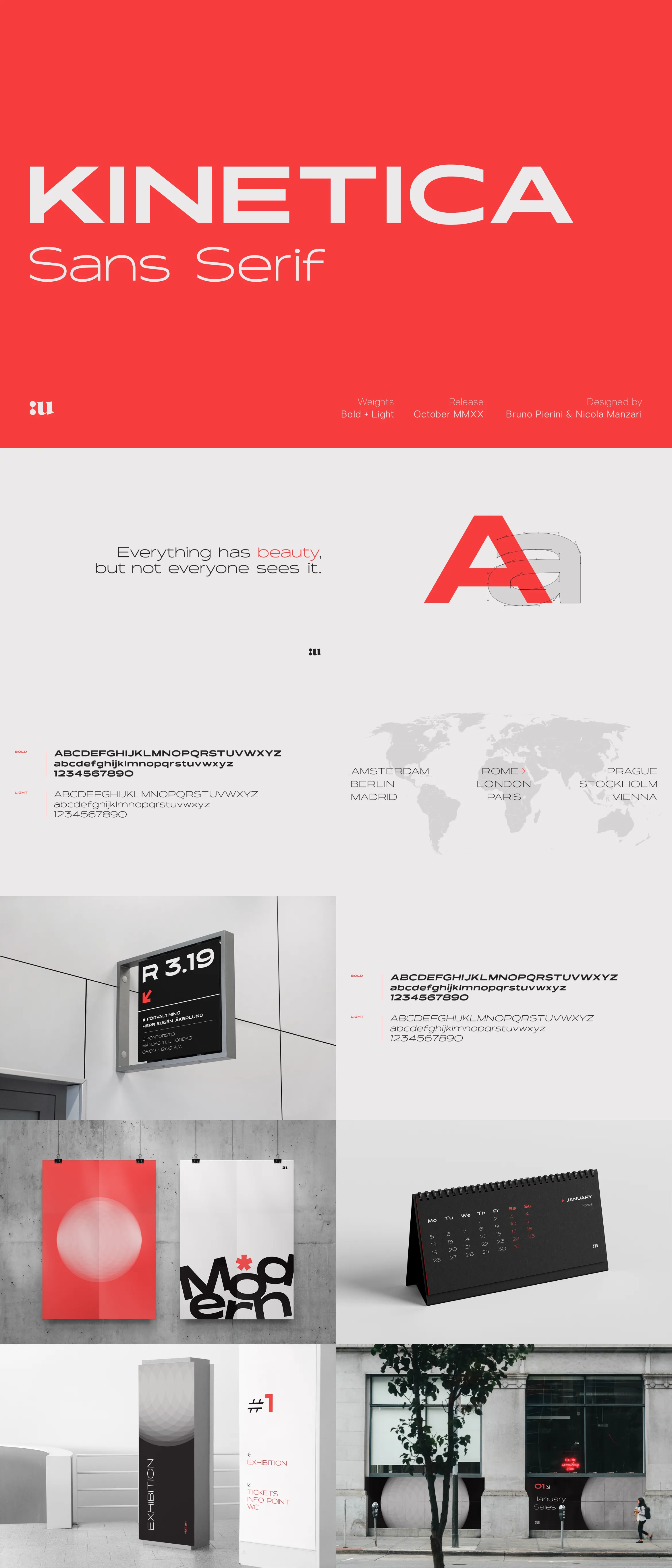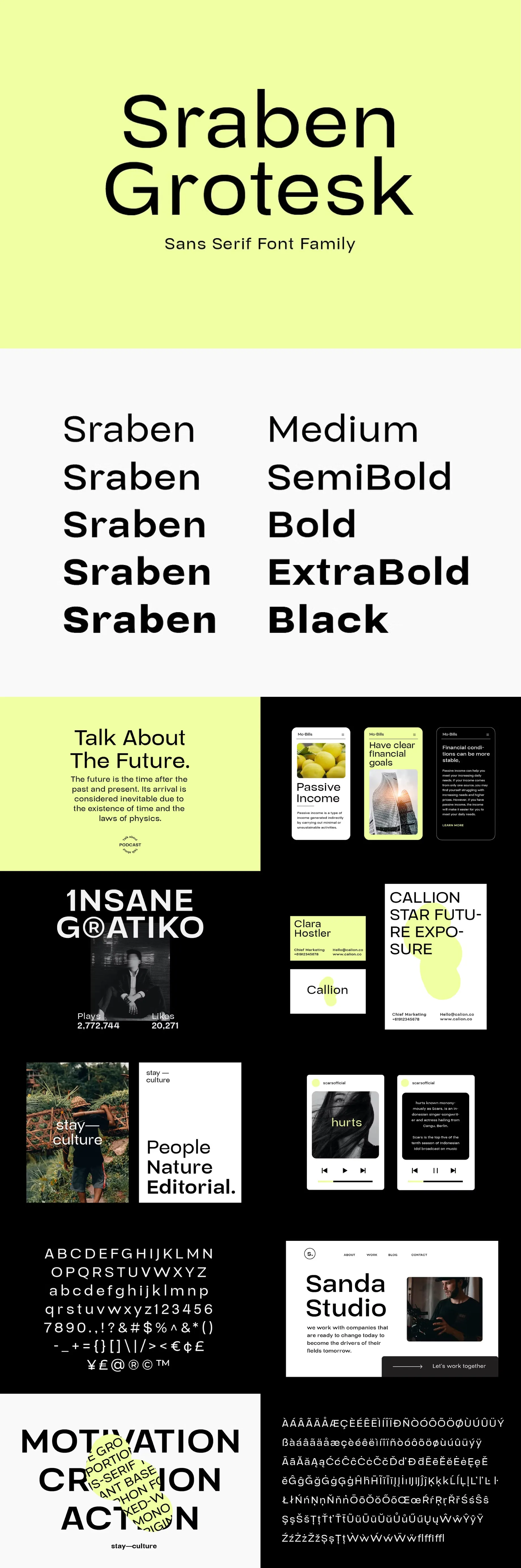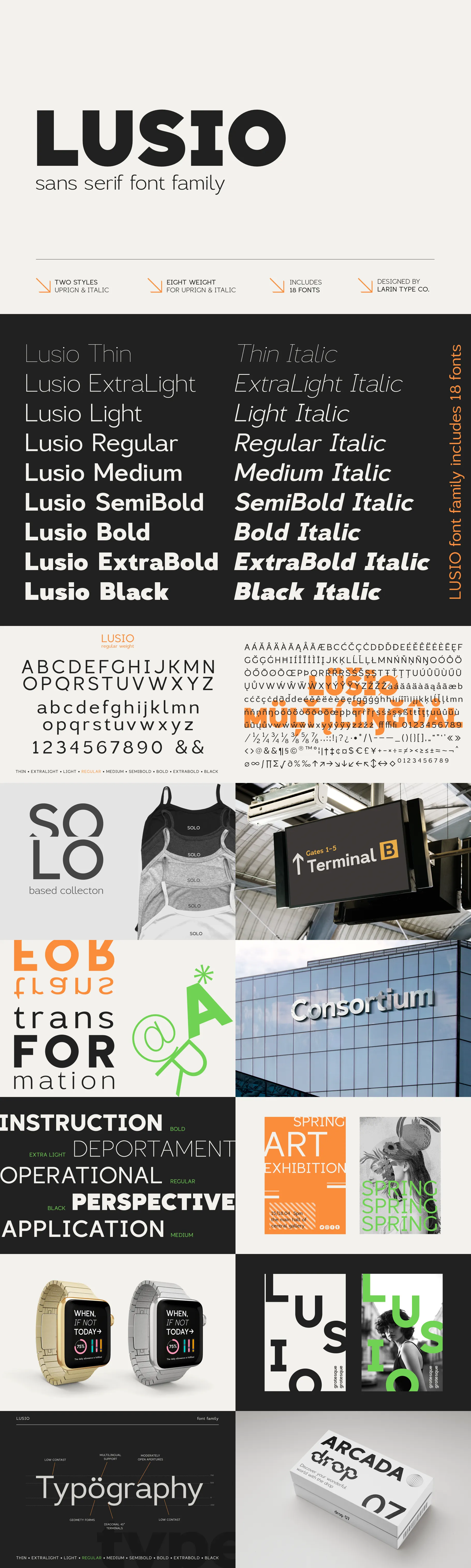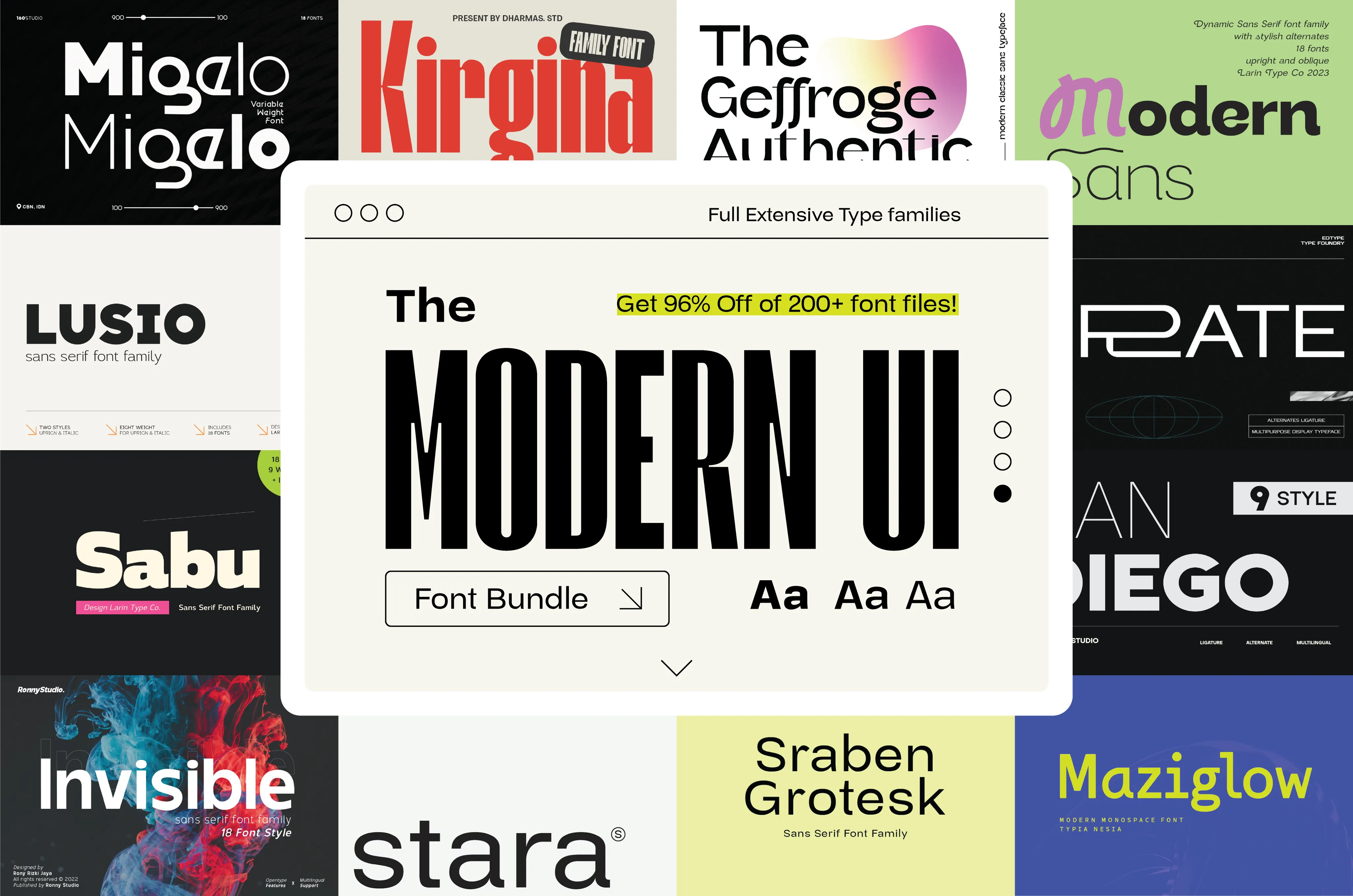
The Modern UI Font Bundle
Introducing The Modern UI Font Bundle – your ultimate solution for sleek and minimalist typography.
Whether you're crafting websites, games, or mobile apps, you'll find the perfect font to complement your design aesthetic.
From crisp sans-serifs to elegant geometric fonts, each typeface in this bundle is optimized for readability and versatility, ensuring seamless integration into your projects.